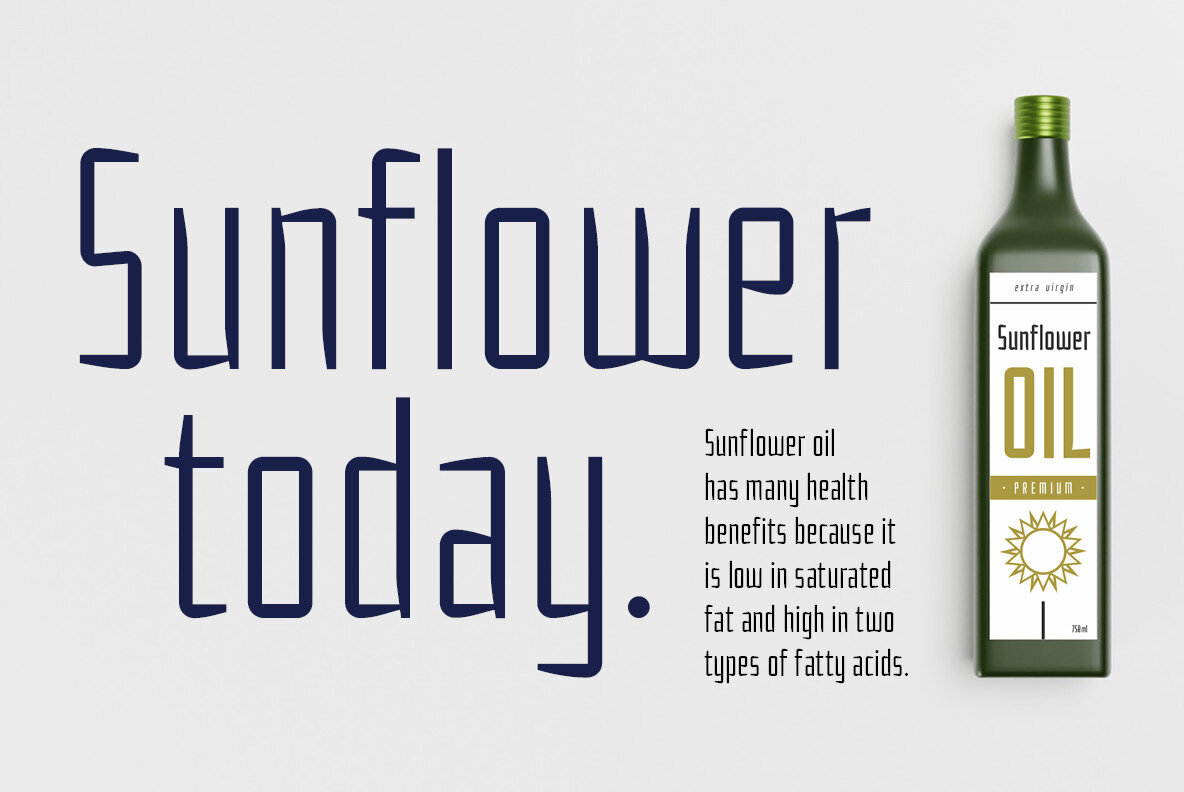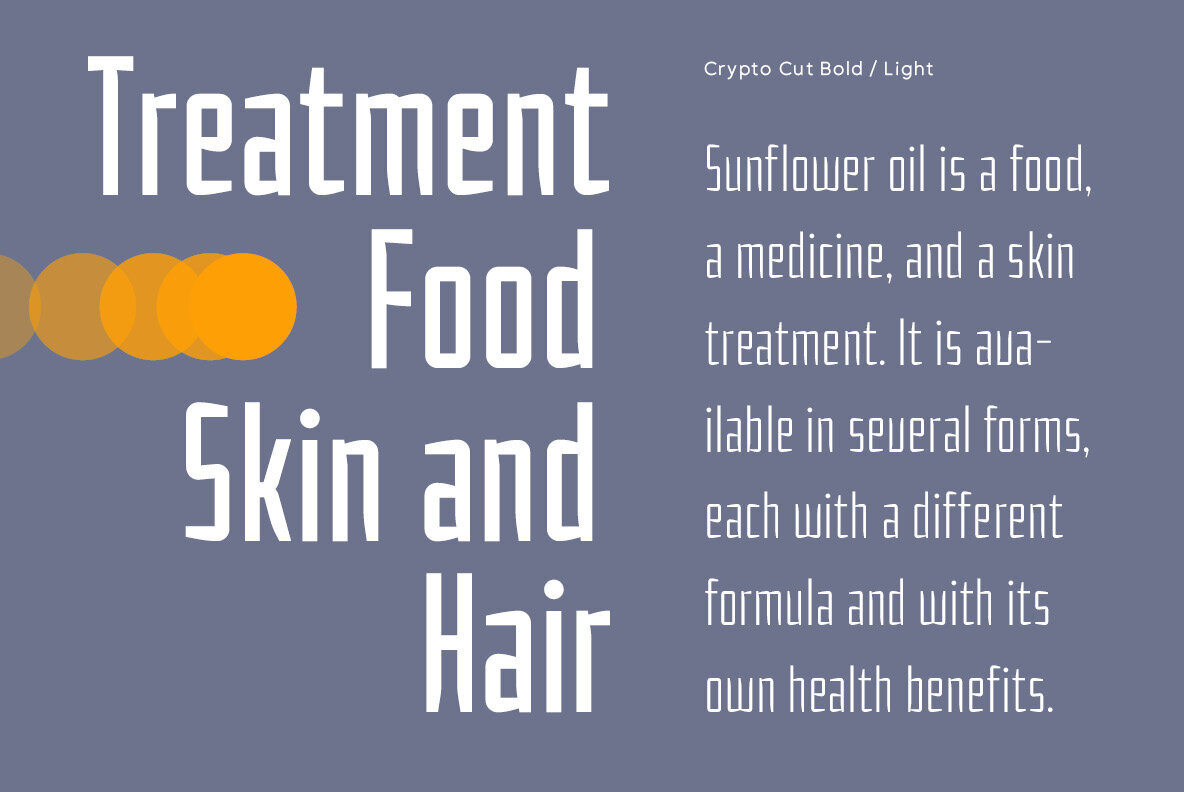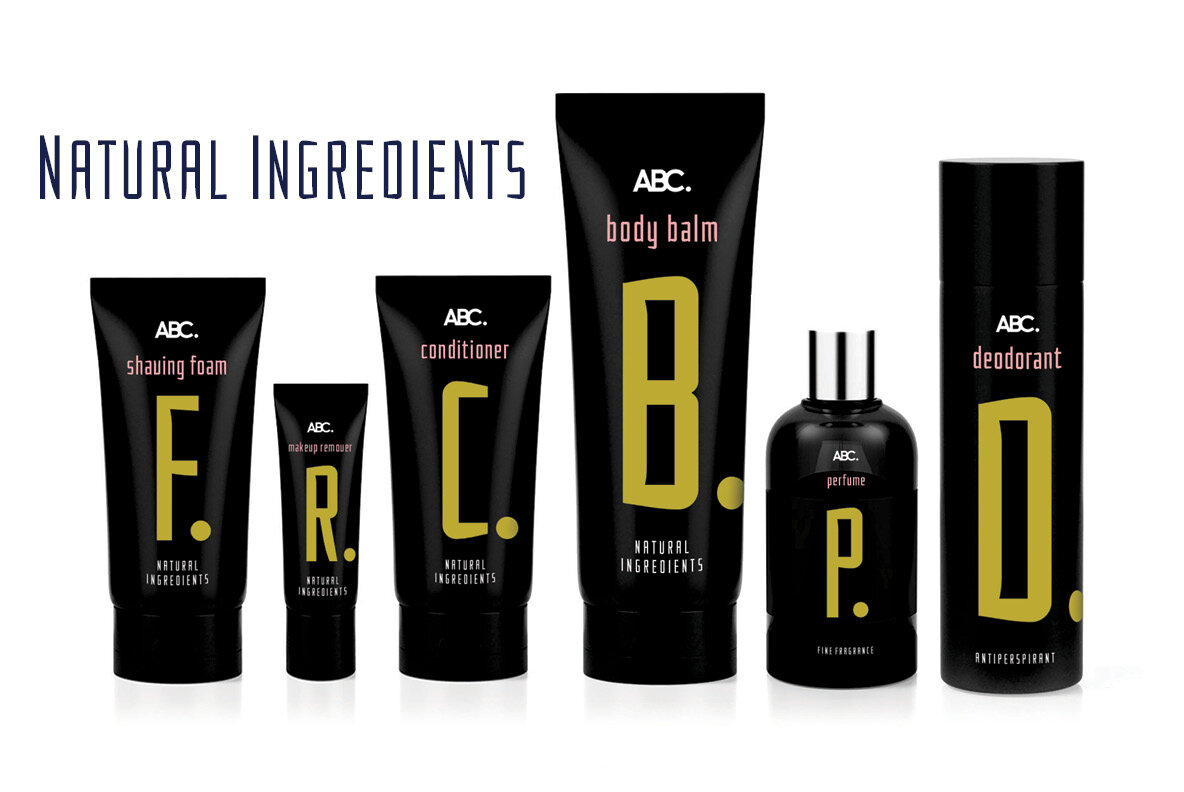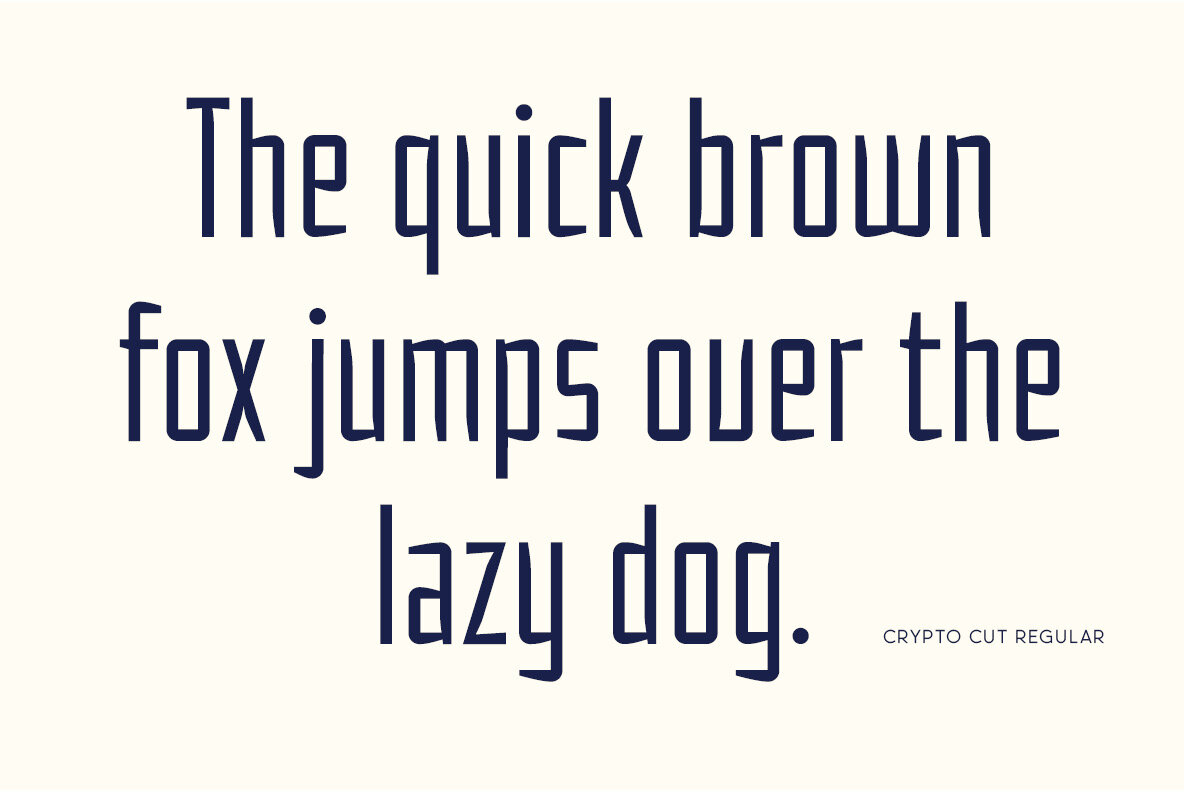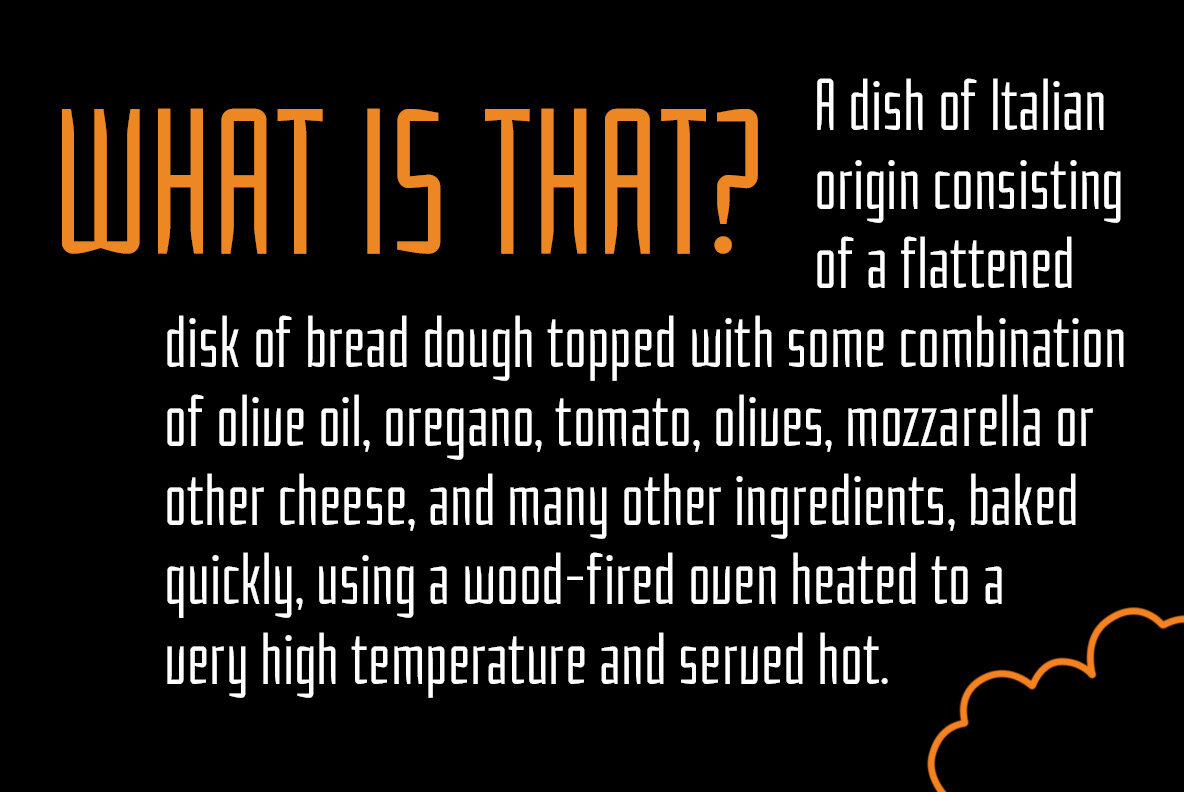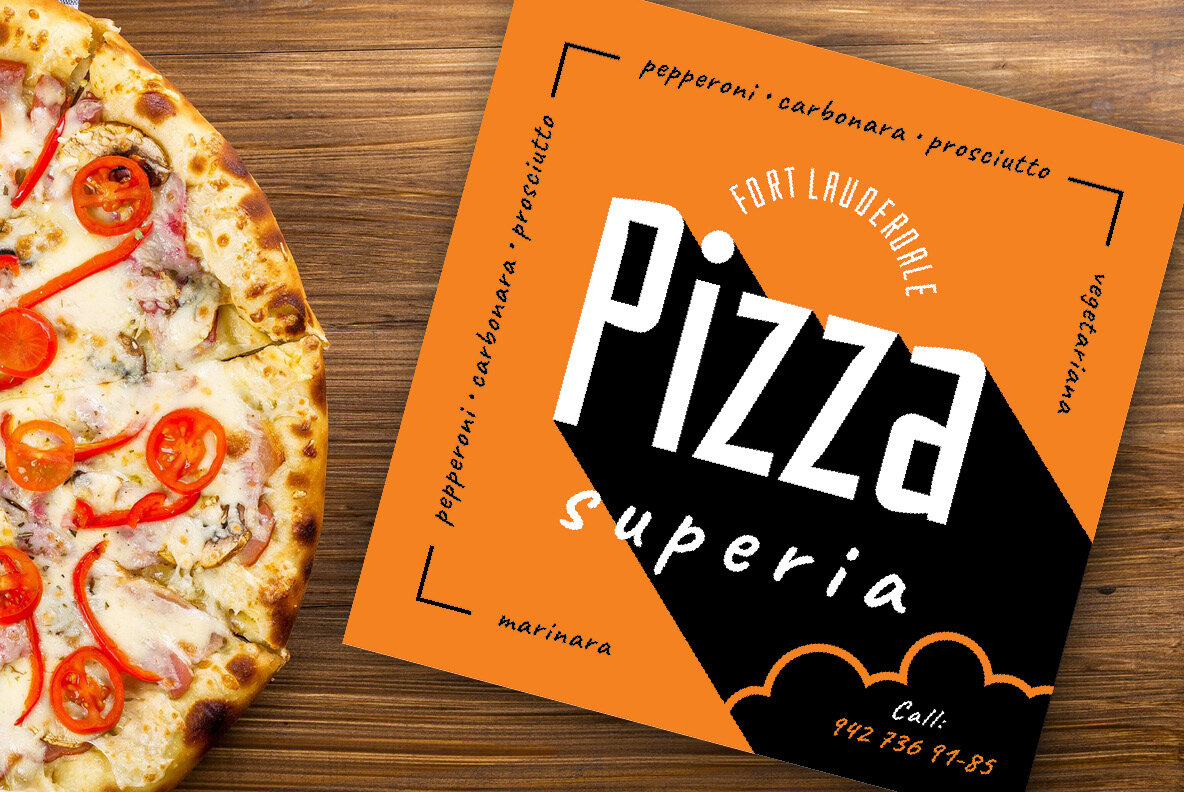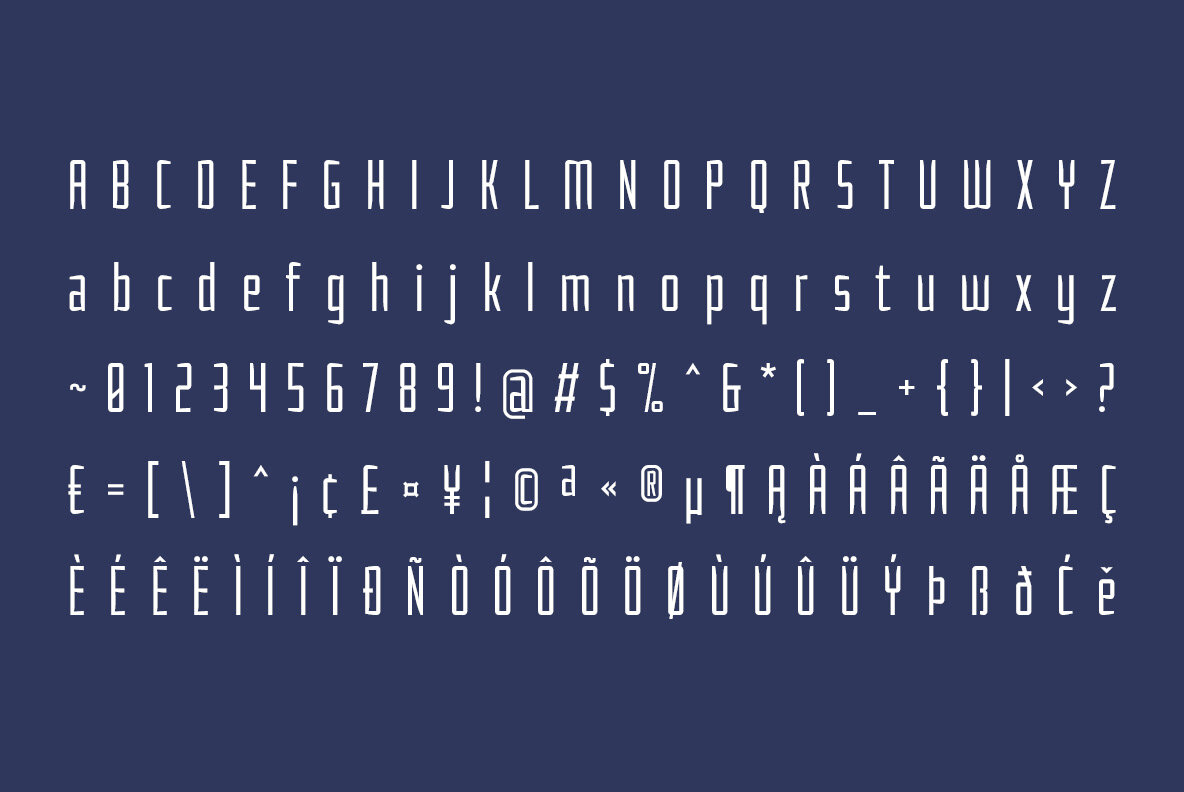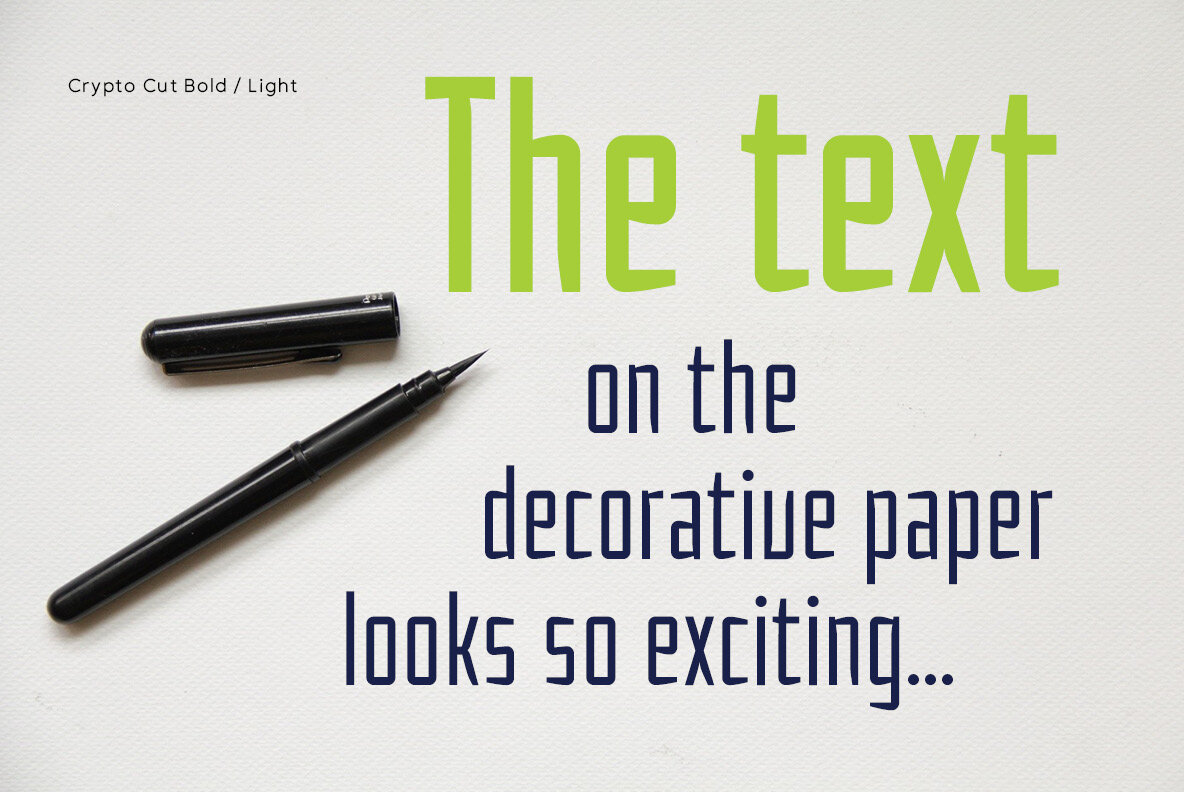
Crypto Cut Font
Crypto Cut is a narrow, sans serif, display font with three weights. Both lowercase and uppercase letters have the same width. It looks good in both classic and modern designs, logotypes, films, posters, billboards, press advertisements, websites, packaging. It provides multilingual support.